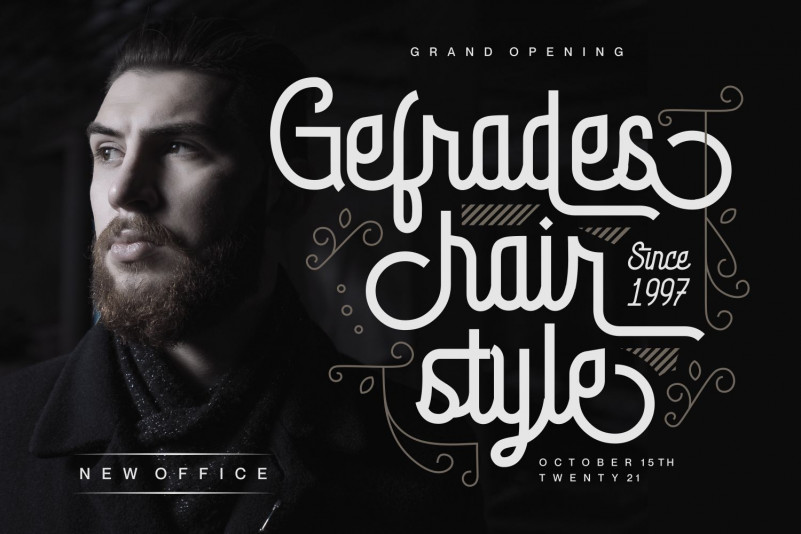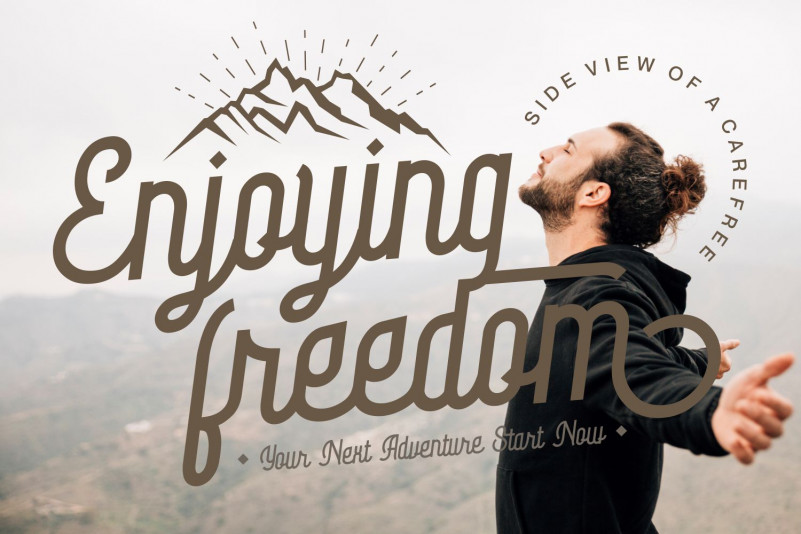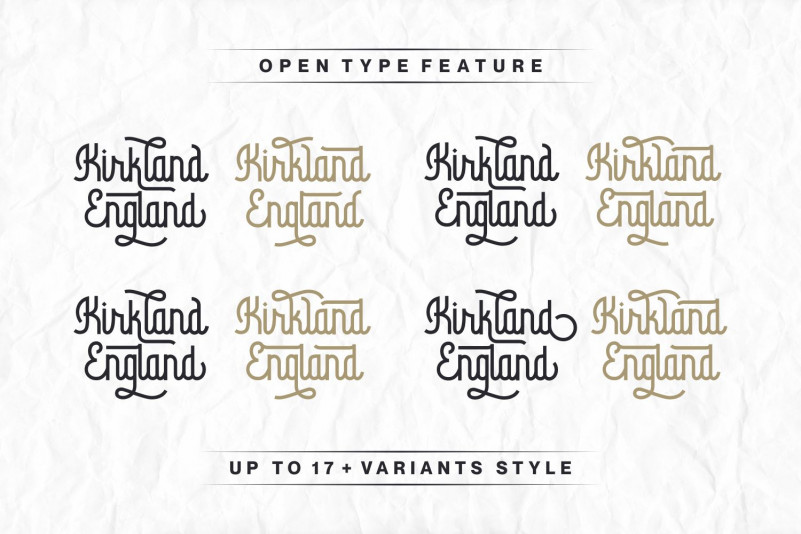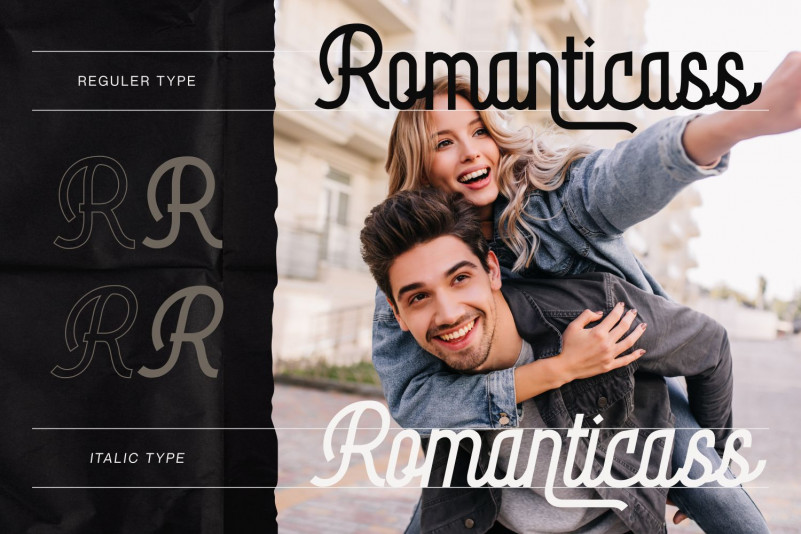
Byemalkan Script Font
This is a vintage styled script font. It is defined by smooth curves and is perfect for fashion branding or editorial designs. Add it confidently to your projects, and you will love the results.